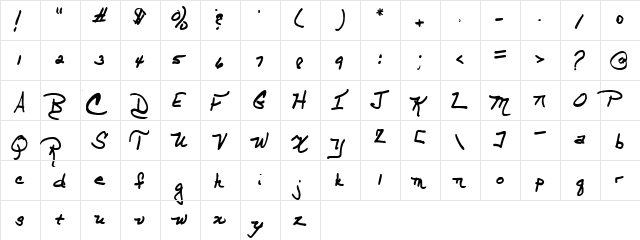
REW Regular
| Foundry | Font Garden |
| Designer | Ellinor Rapp |
Design Context for REW Typeface
REW is a composed and adaptable typeface that performs quietly and consistently across a wide range of design contexts.